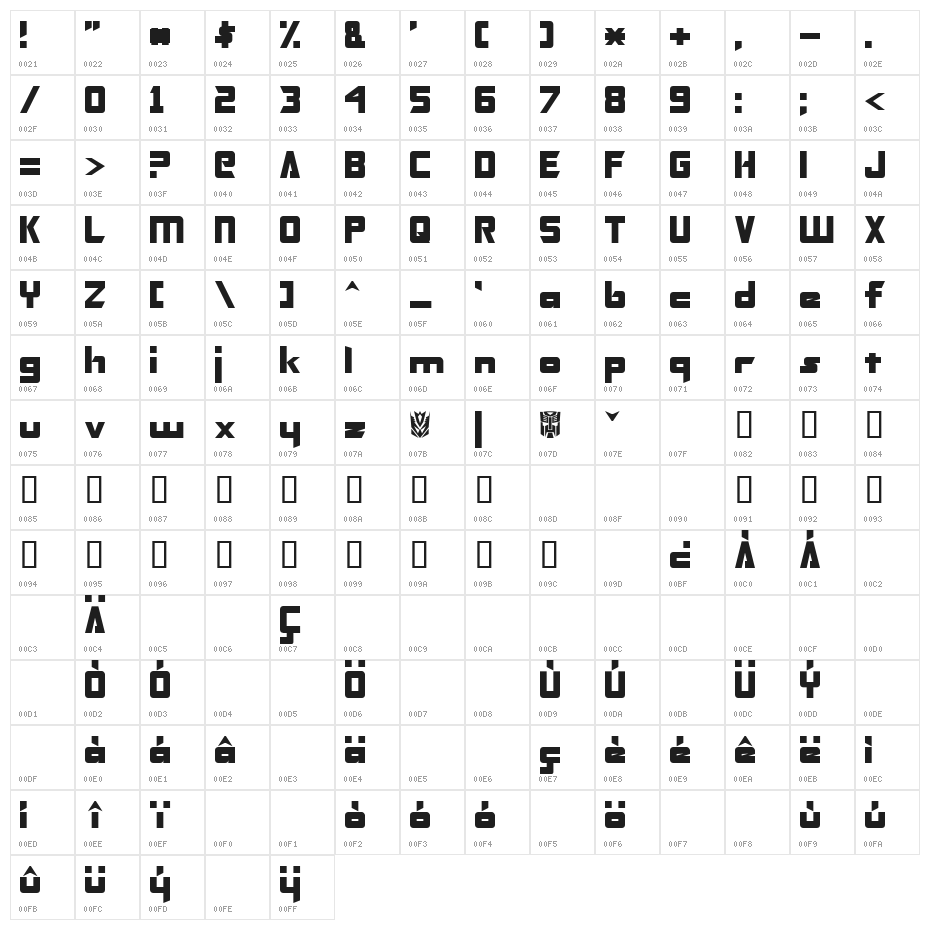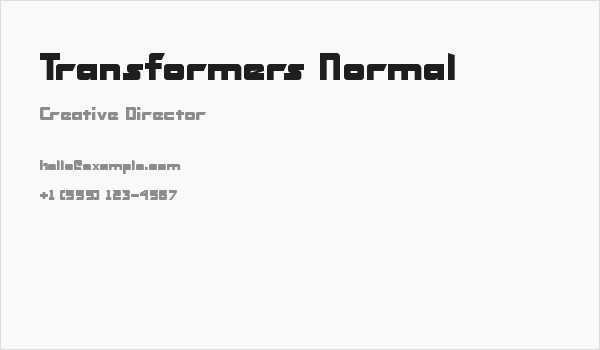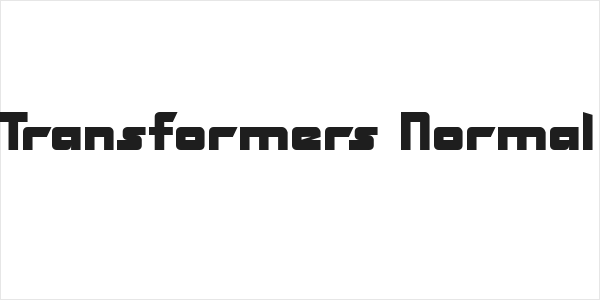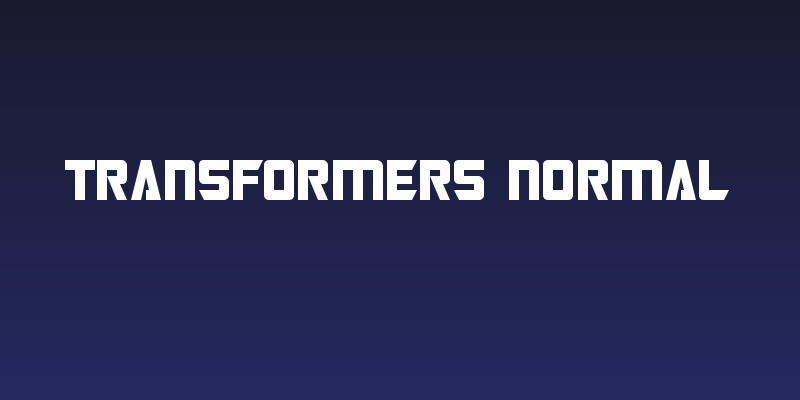
Transformers Normal Font
Transformers Normal Description
This font features a bold and geometric design with a futuristic aesthetic. The characters are constructed with sharp angles and straight lines, giving it a mechanical and robotic feel. The uppercase letters are particularly striking, with a blocky and solid appearance that commands attention. The lowercase letters maintain the same angular style, ensuring consistency across the typeface. Numbers and special characters are designed to match the overall theme, making this font ideal for projects that require a modern and edgy look.
| Proposed Projects | Ideal for sci-fi themed designs, movie posters, video game titles, and branding for tech companies. |